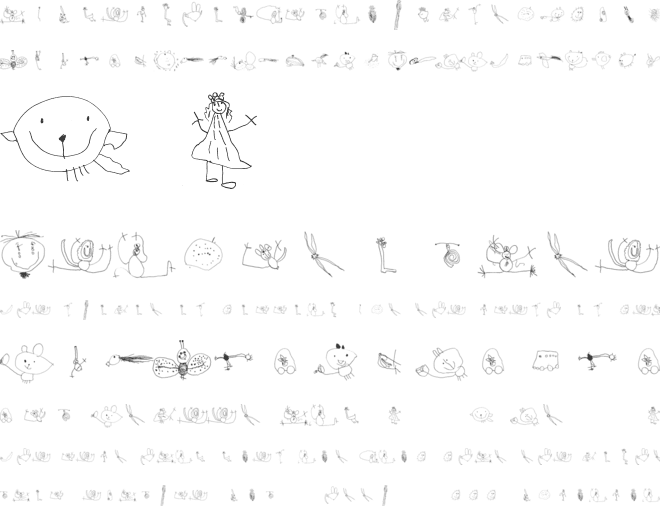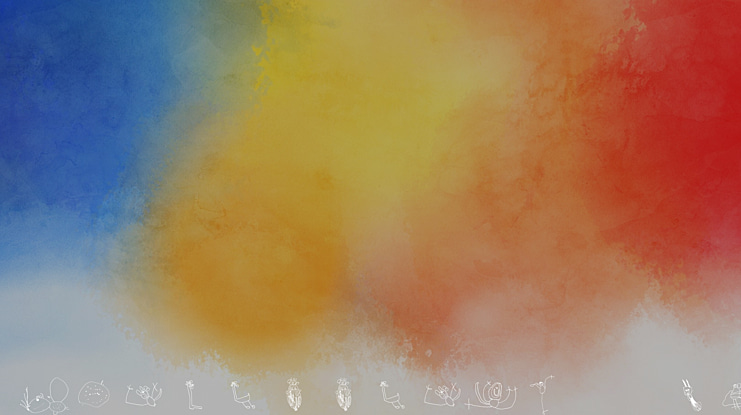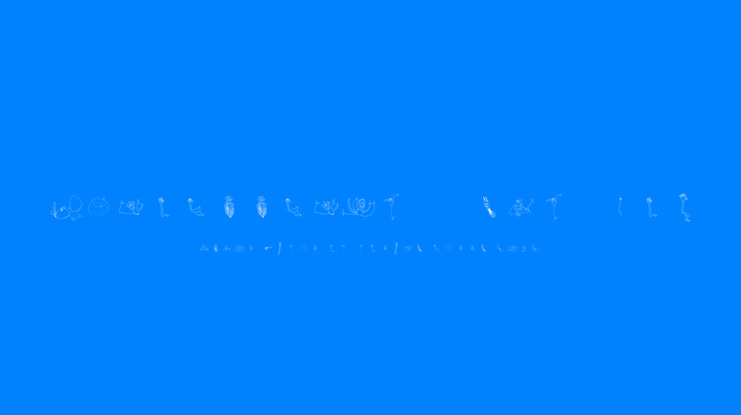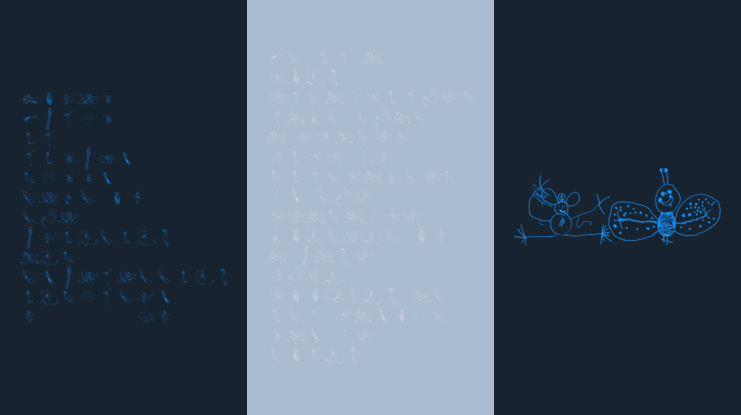
Julidoodles_3yrs_big Font
Doodles and drawings of my daughter Julie during the year of 2017 (when she was 3 years old). All donations would be used solely on getting her new markers and papers. Or candies. I´m still undecided.
Lots of cats, ladybirds, fishes, unidentified animals and big smiles. Best to be used in a really big sizes.